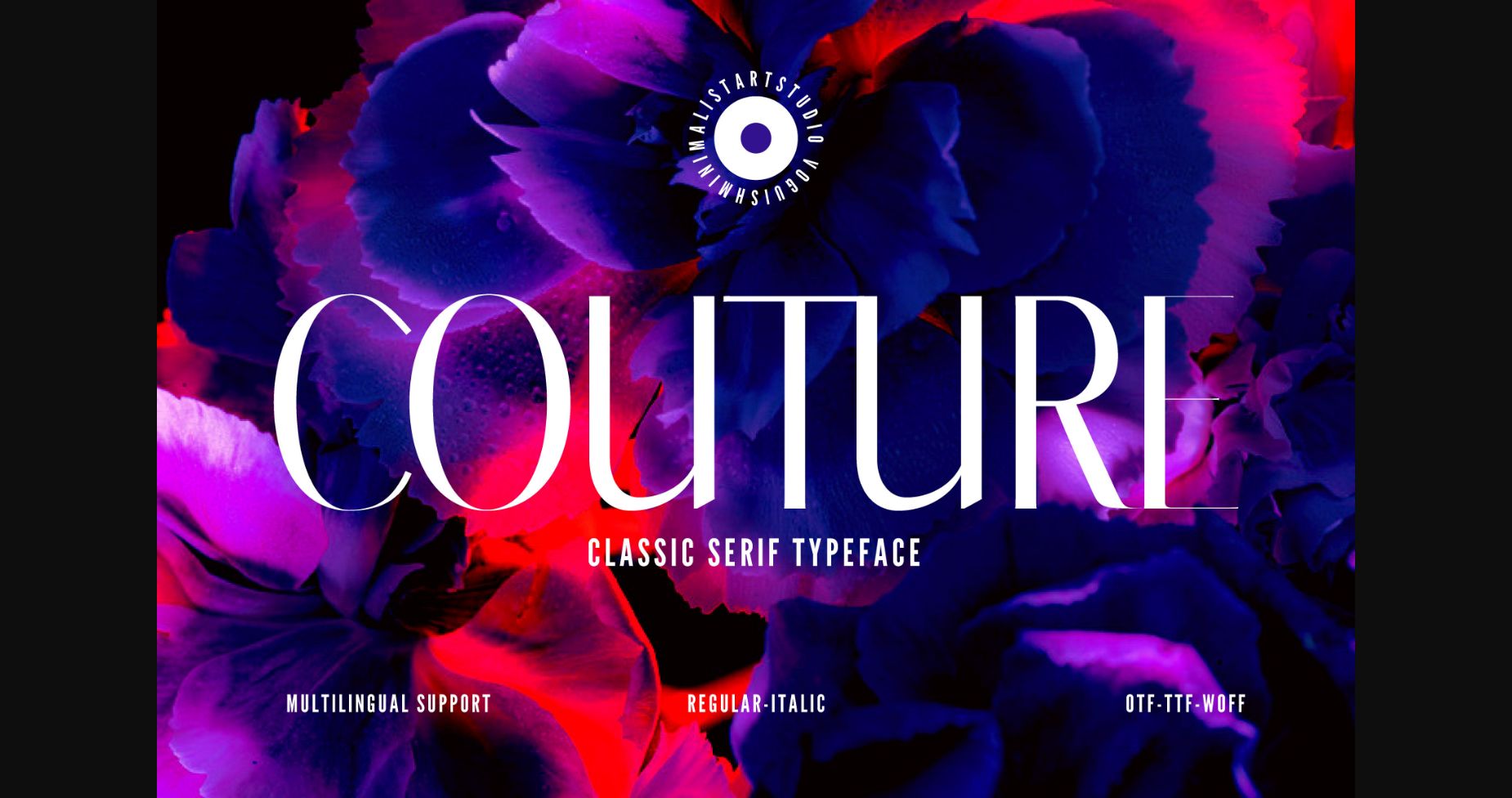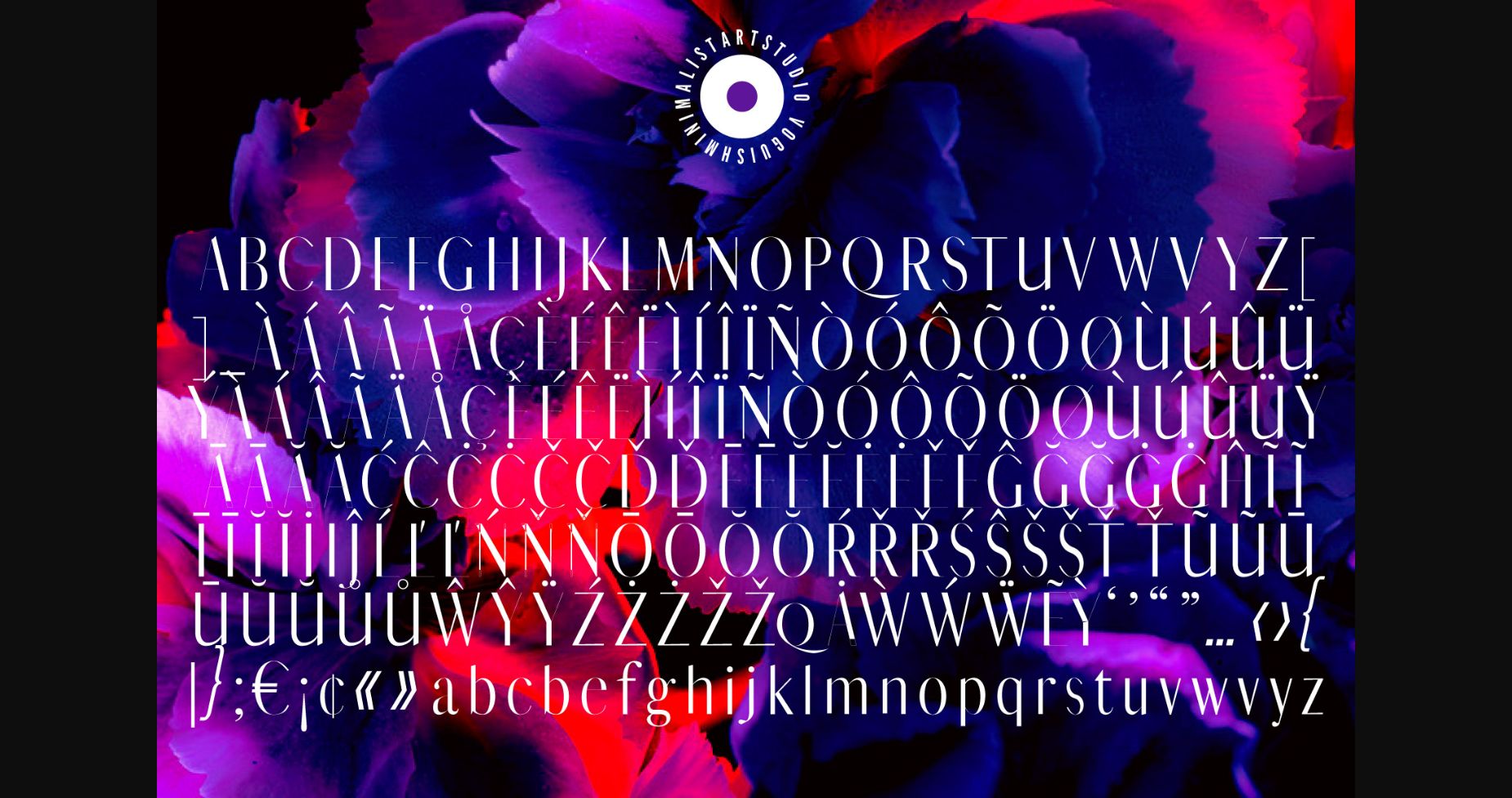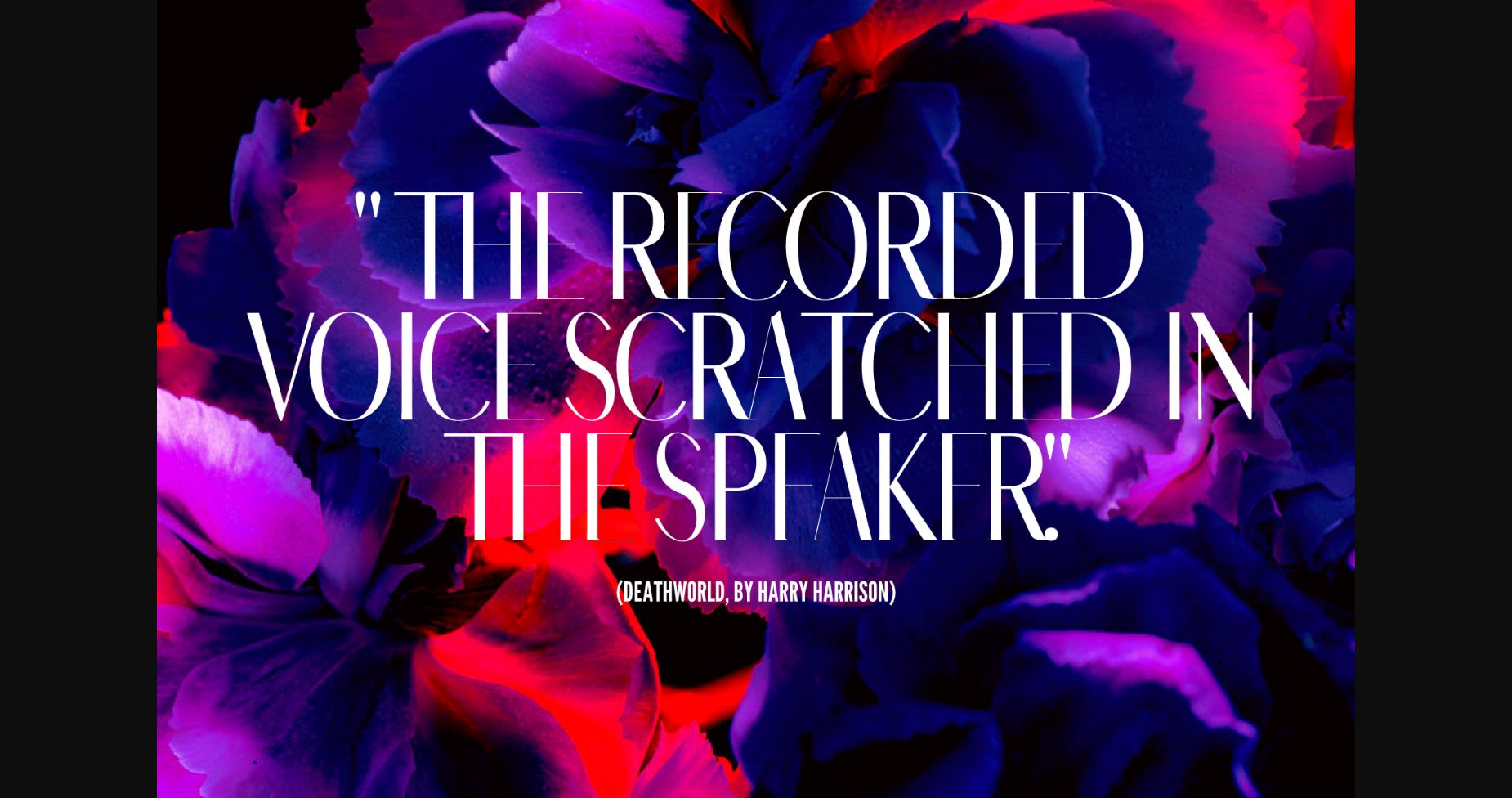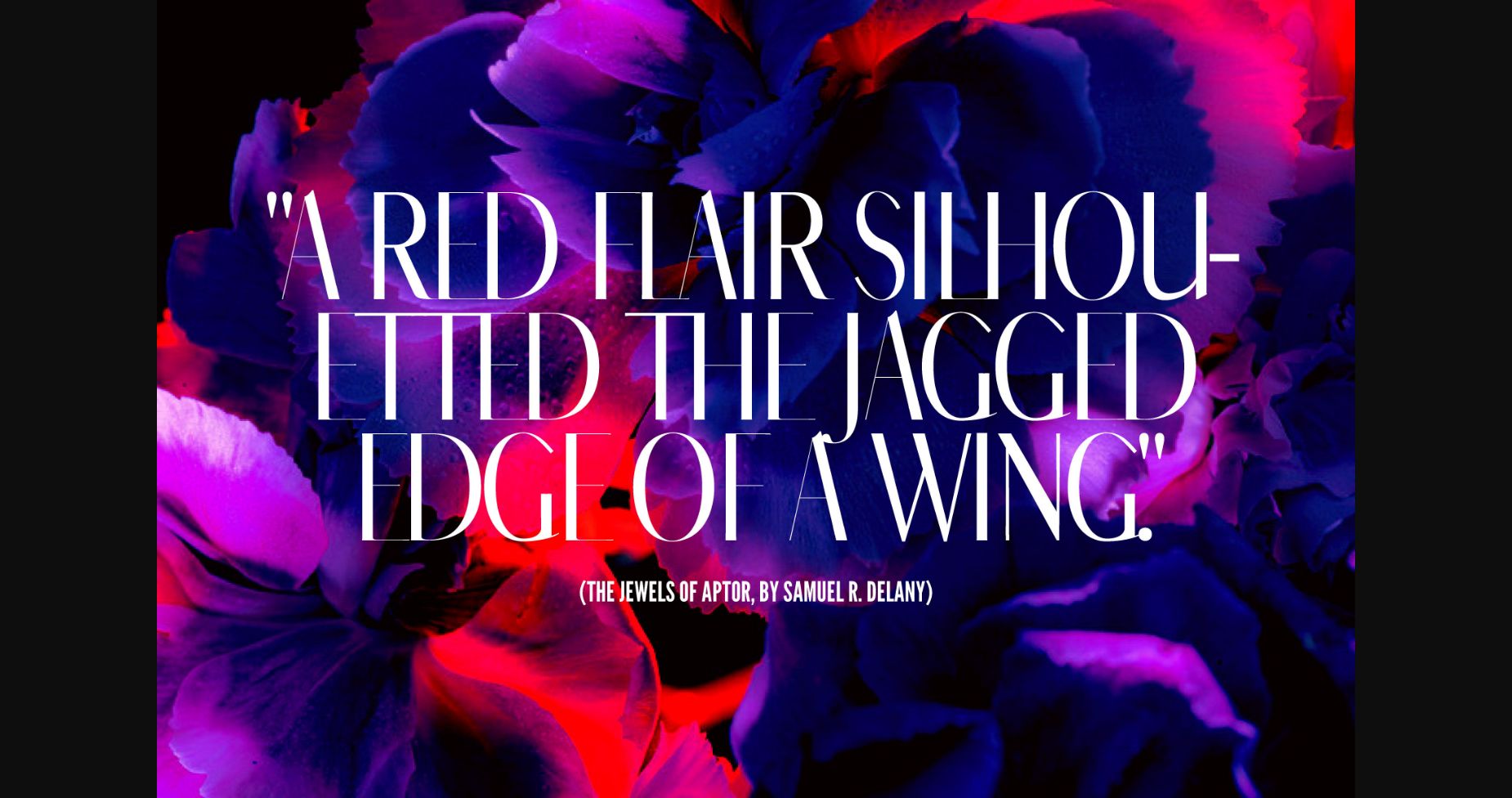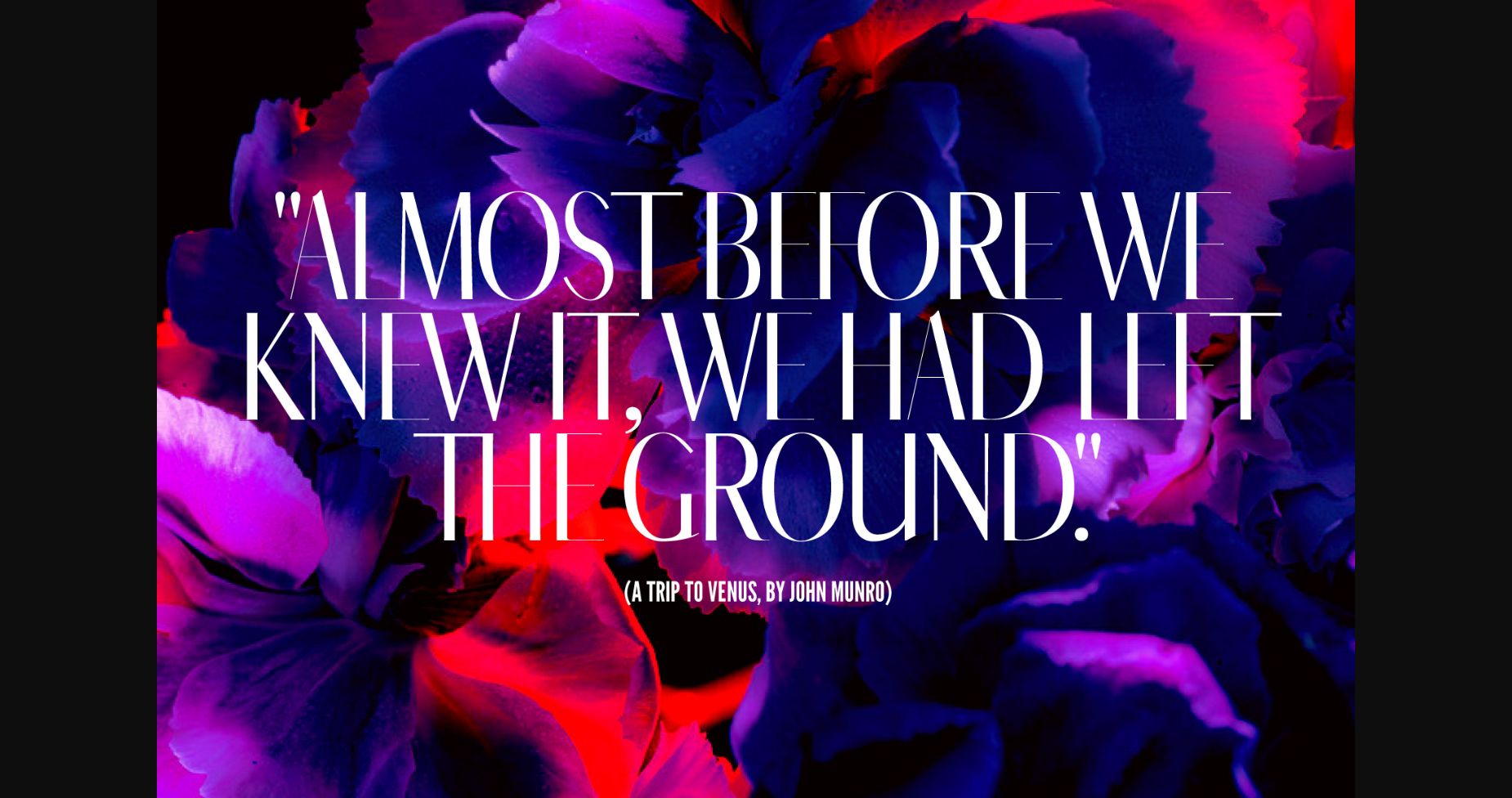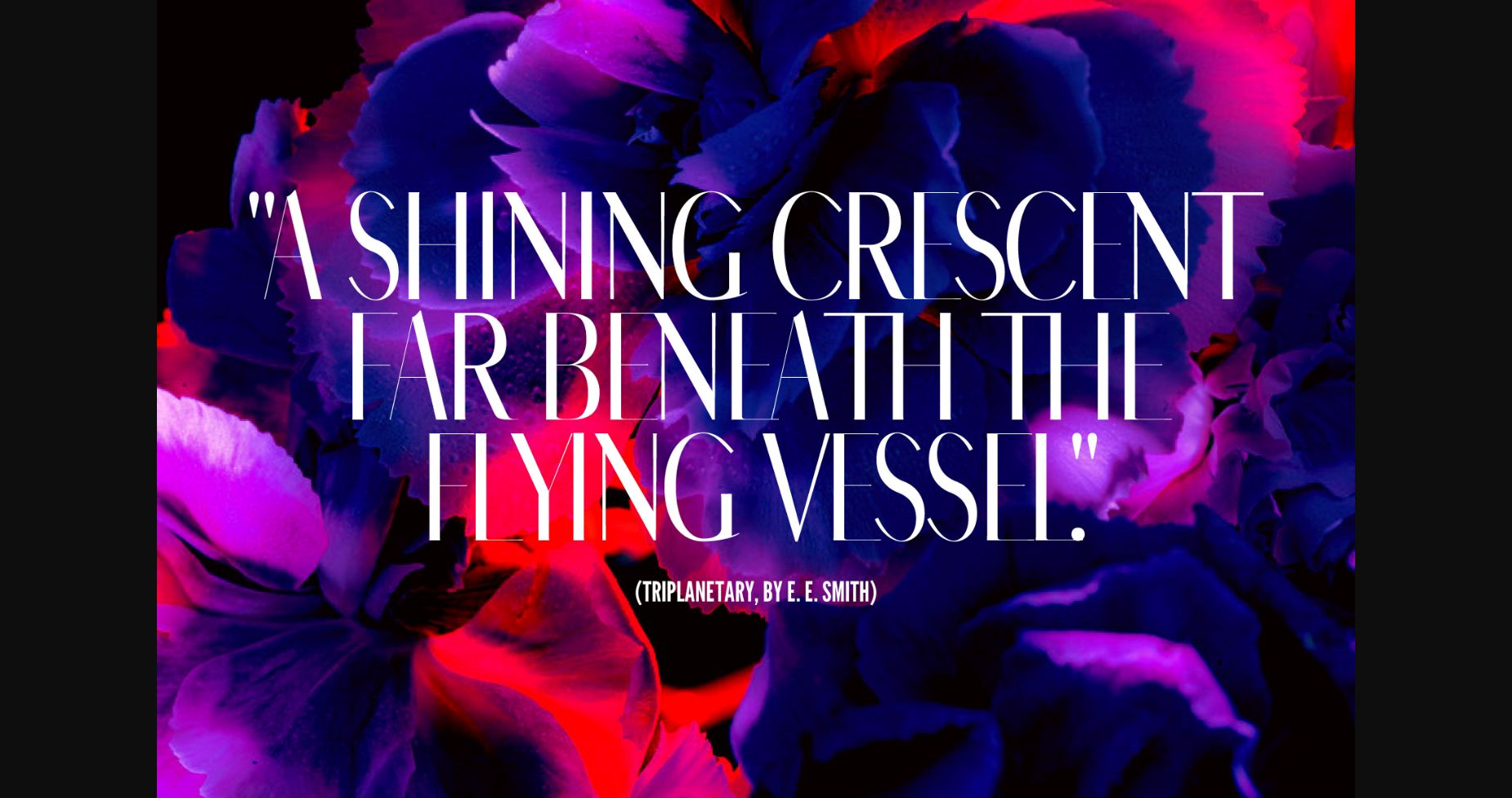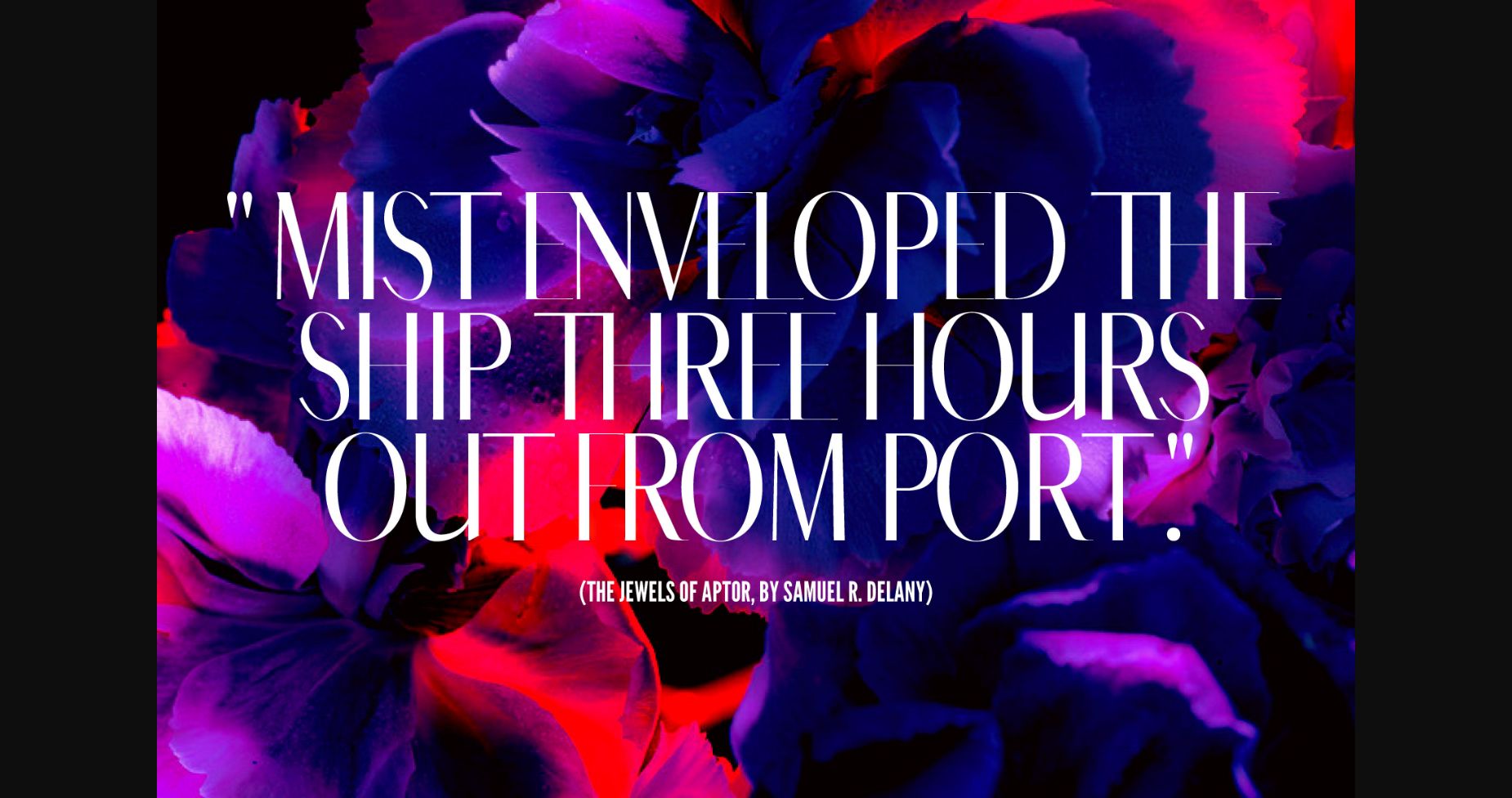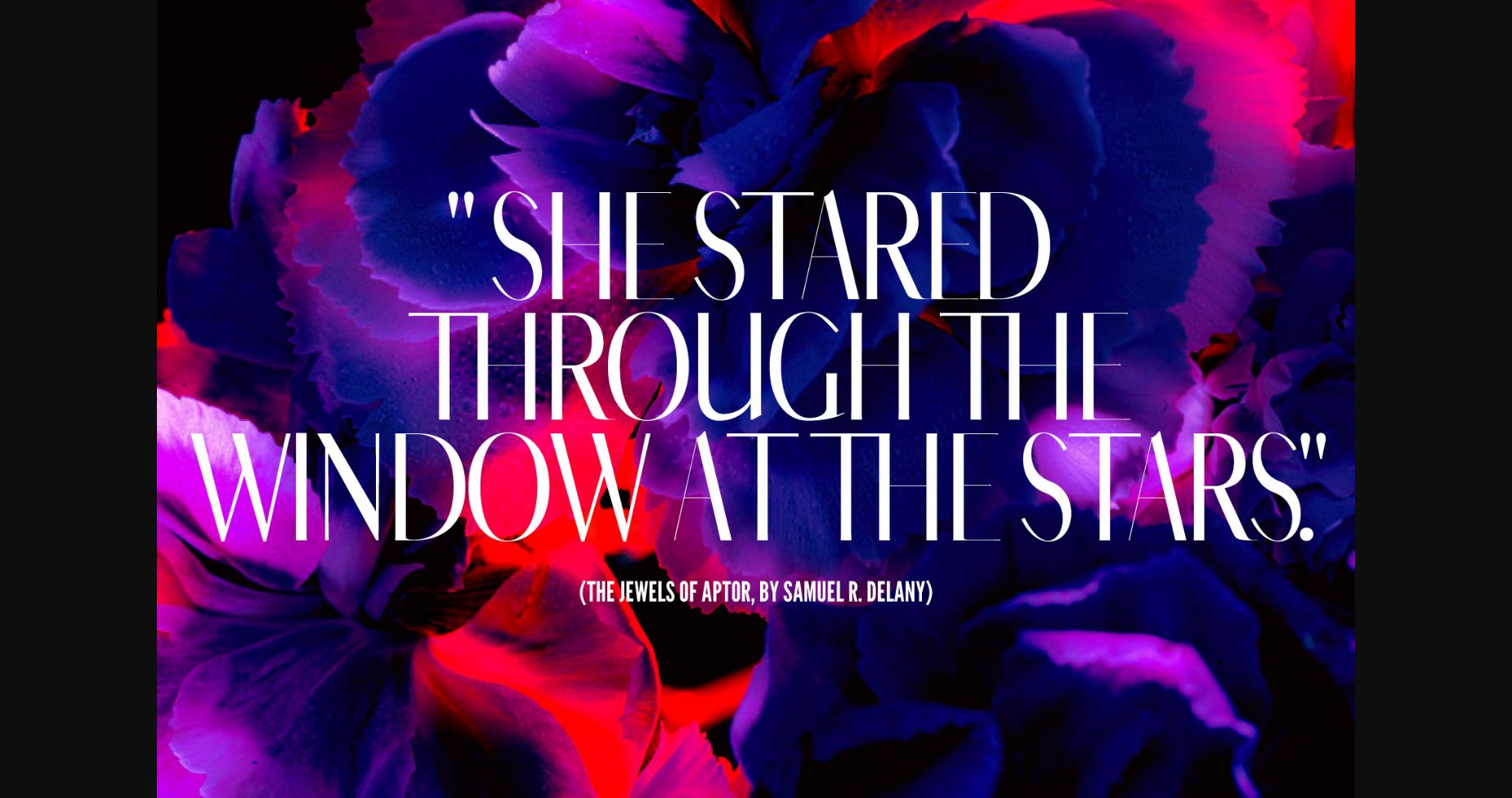
Couture Font
About Couture Font
Introducing Couture – the perfect choice for any business looking to elevate its brand and increase conversions. With its clean lines and minimalistic design, this font exudes professionalism and sophistication. Its versatility allows it to be used across a variety of mediums, from website headlines to business cards, making it a valuable asset for any company. The font is easy to read and its neutral look makes it great for any kind of brand.